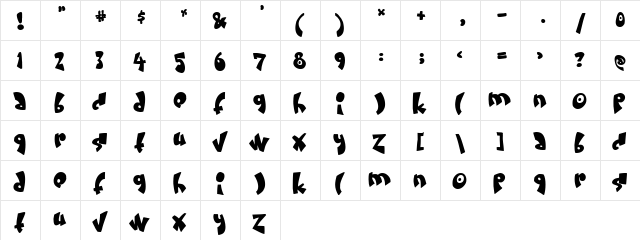
Cream and sugar Regular
Design Context for Cream and sugar Typeface
Cream and sugar is a composed and adaptable typeface that performs quietly and consistently across a wide range of design contexts.